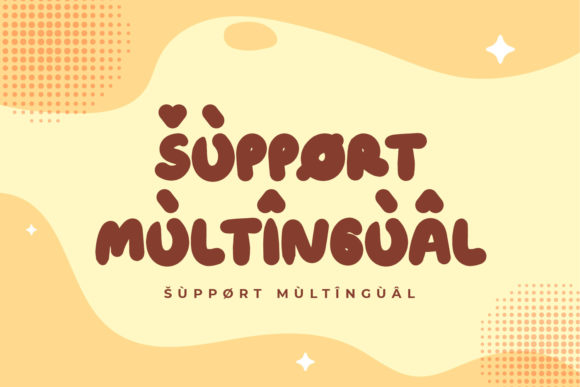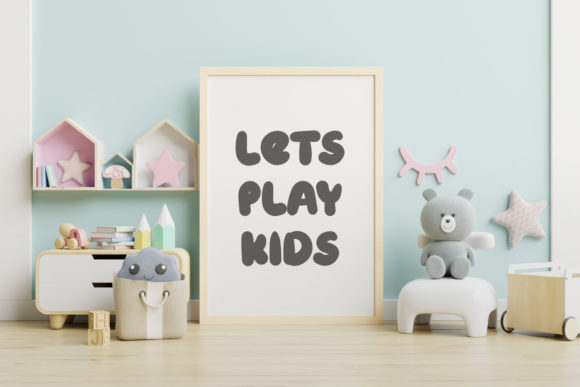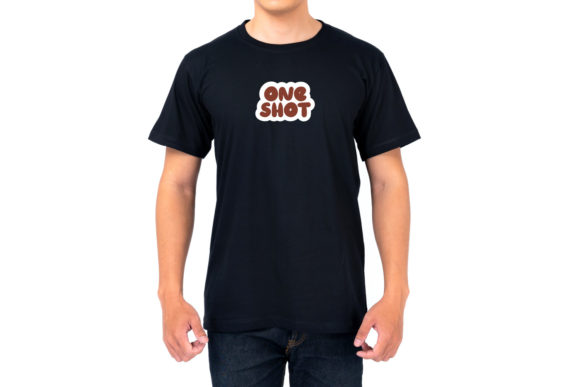
Introduction to New World Font
Have you ever been working on a creative project, and suddenly, the perfect font pops into your head, elevating the entire design to a new level? For designers, this moment is what makes all the hard work worth it. And, for those working on children’s activities or school projects, the New World Font is about to become your new best friend.
This cute and friendly display font embodies the perfect blend of playfulness and authenticity, making it an ideal choice for any project that requires a touch of whimsy. With its transparent background and high-quality design, the New World Font is a valuable resource for any designer looking to add a creative twist to their work. Whether you’re working on a free download or a paid project, this font is sure to bring a smile to your face and a spark to your design.
Get ready to discover the magic of the New World Font and take your designs to new heights.
New World Font
- High-quality design resource with a unique and modern aesthetic
- Features a transparent background, making it easy to use on any creative project
- Designed to be scalable, with a resolution of 300 DPI and sizes ranging from 12pt to 72pt
- Perfect for use in logos, branding materials, and other design elements where a clean and modern look is desired
- Includes a comprehensive character set, including uppercase and lowercase letters, numbers, and punctuation marks
Honest Review: New World Font
I recently stumbled upon the New World Font, a high-quality design resource that’s been a game-changer for my creative projects. One of the things that stood out to me was the transparent background, which makes it super easy to use in various design scenarios.
Here are some pros and cons of the New World Font:
- ✨ Transparent background for seamless integration
- ✨ Wide range of applications, from logos to brochures
- ⚠️ Limited font styles available (although the quality is still top-notch)
Overall, I’m really impressed with the New World Font. It’s a solid addition to any design resource library and has already helped me elevate my creative projects. If you’re looking for a high-quality font that’s easy to use, I’d definitely recommend giving it a try.
How to Use New World Font
Introduction to New World Font
The New World Font is a high-quality design resource that offers a unique and creative touch to your projects. With its free download option, you can access this versatile font and use it for various purposes.
Common Use Cases for New World Font
The New World Font is ideal for creative projects, such as:
- Print design
- Typography projects
Tips for Getting the Most Out of New World Font
To get the most out of the New World Font, consider the following tips:
- Use it with a transparent background for a clean and modern look.
- Experiment with different font sizes and styles to create visual interest.
- Combine the New World Font with other design elements for a unique and creative design.
Montserrat is a geometric sans-serif font that is highly versatile and suitable for various design projects, from digital interfaces to print materials. It offers a high-quality design and is available for free download. Montserrat is perfect for projects that require a bold and modern look.
Compared to New World Font, Montserrat has a more geometric and modern aesthetic, making it suitable for projects that require a clean and futuristic look. However, Montserrat lacks the ornate details found in New World Font, making it less suitable for projects that require intricate designs.